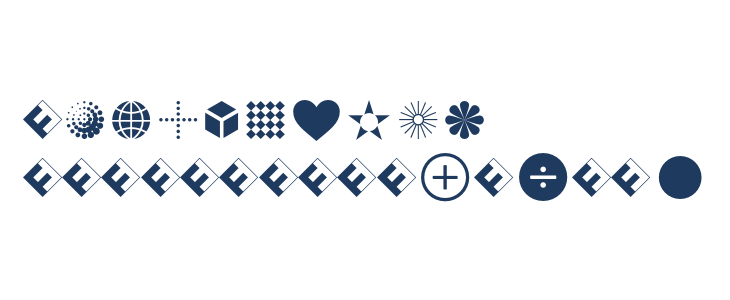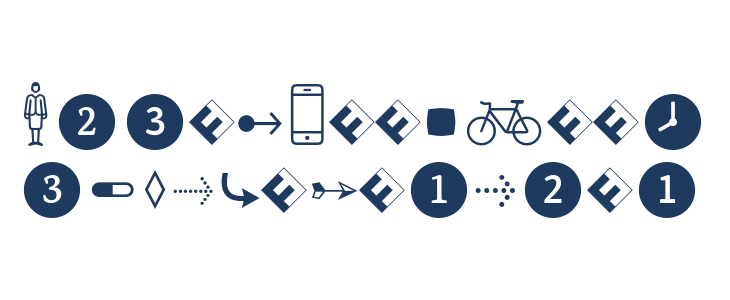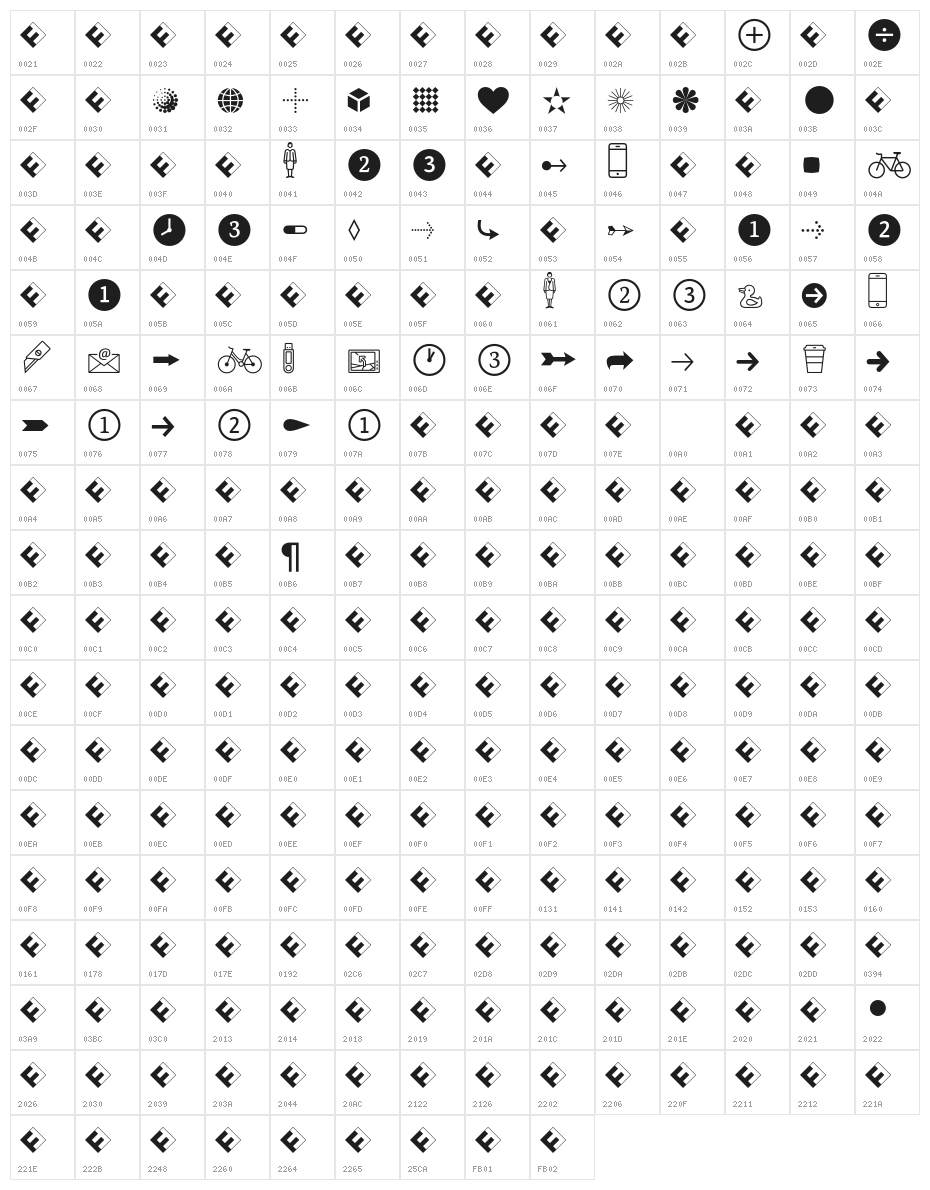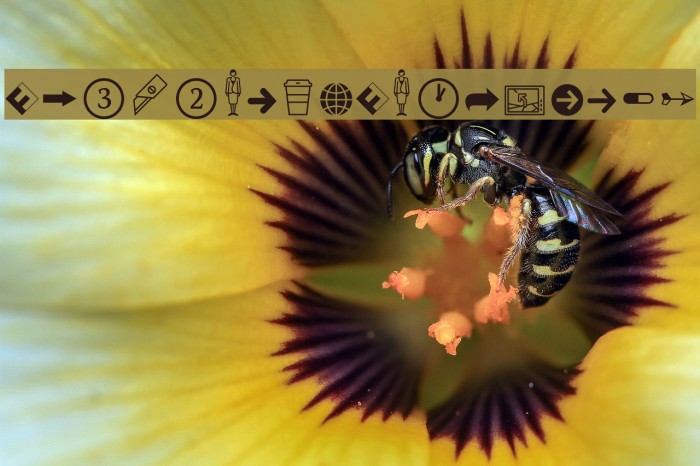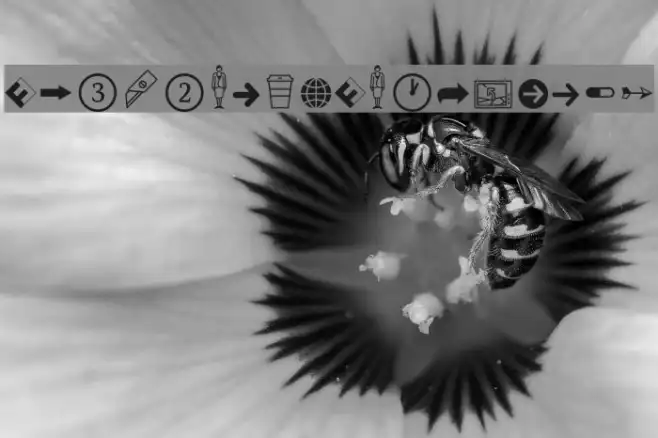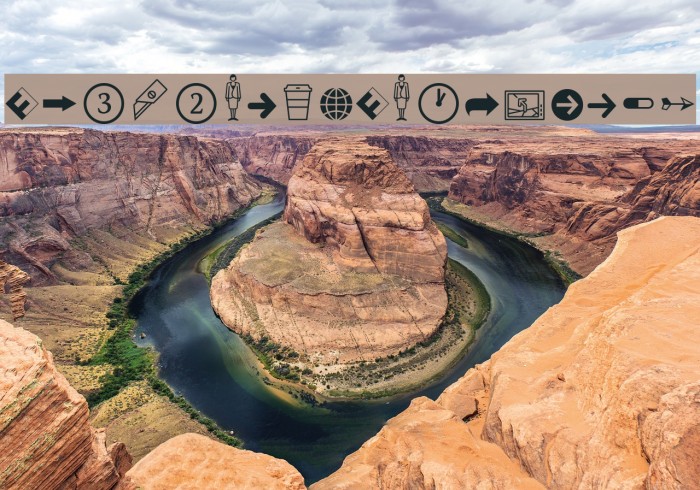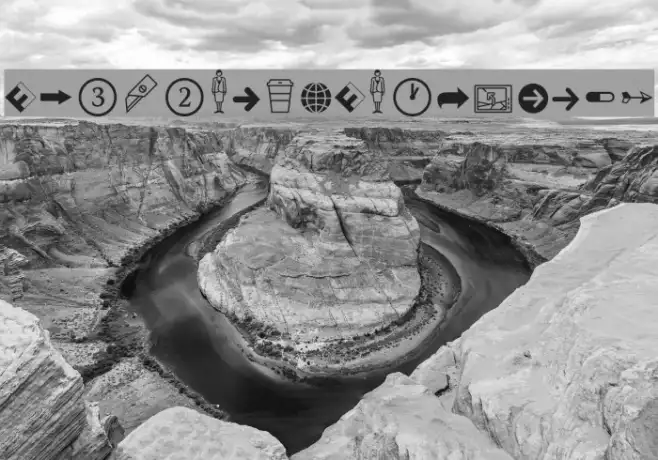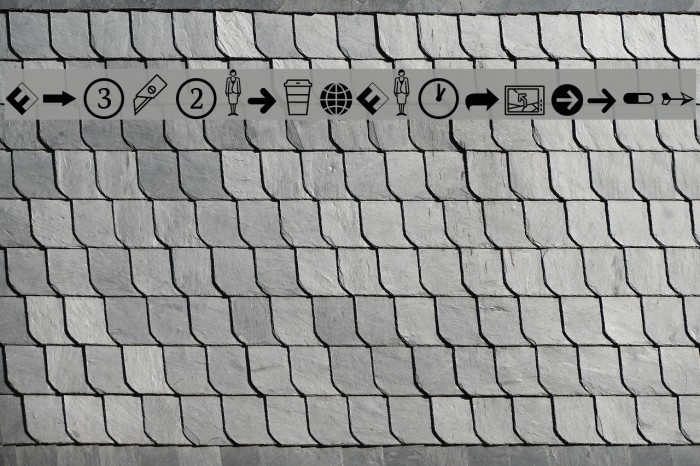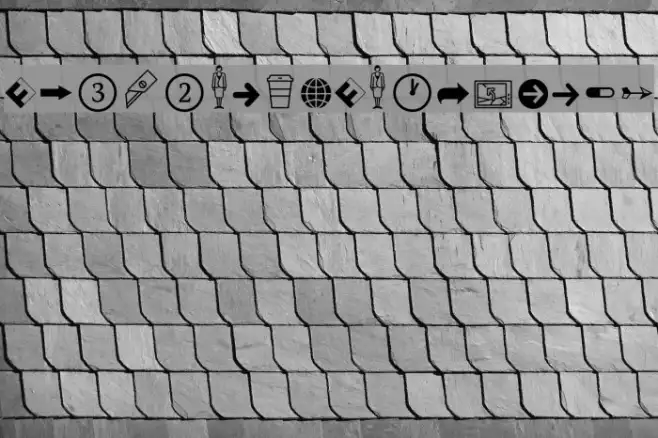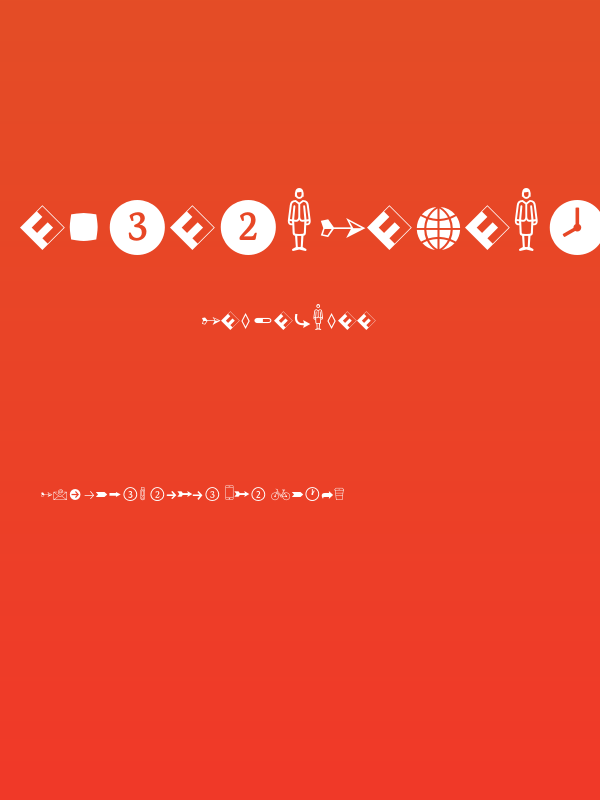
A pictographic symbol font featuring a wide variety of icons such as arrows, numbers in circles, geometric shapes, clocks, people, transportation, communication devices, and decorative motifs. The icons are rendered in a bold, high-contrast style with both filled and outlined elements, making them easily recognizable and suitable for visual communication.
| Overall Style | Decorative, Modern |
| Use Case | Icons, Infographics, Signage, Decorative elements |
| Proposed Projects | Infographics, signage, instructional materials, UI icon sets, educational worksheets, decorative dividers. |